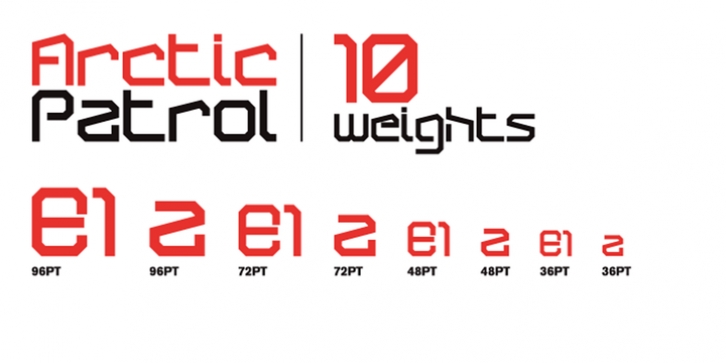
ArcticPatrol was designed by Jonathan Hill and published by The Northern Block Ltd. ArcticPatrol contains 10 styles and family package options.
ArcticPatrol is a modern angular font influenced by military related computer games.
Examples include: Ghost Recon and Medal of Honor.